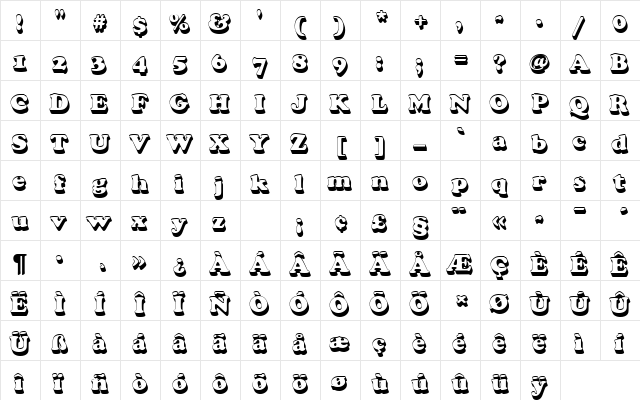
CooperBlaDBolSh1 Regular Font Preview
CooperBlaDBolSh1 Regular
Design Context for CooperBlaDBolSh1 Typeface
CooperBlaDBolSh1 is a composed and adaptable typeface that performs quietly and consistently across a wide range of design contexts.